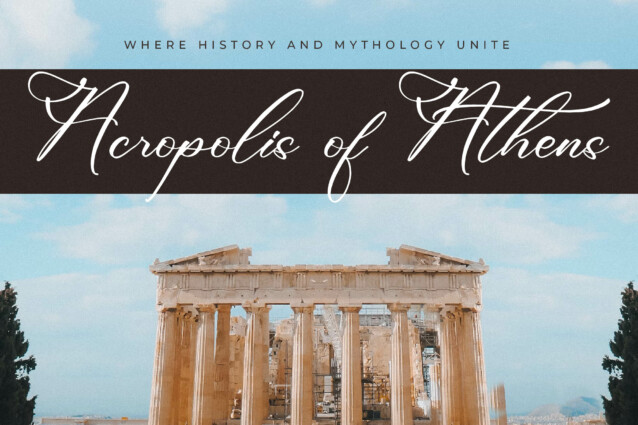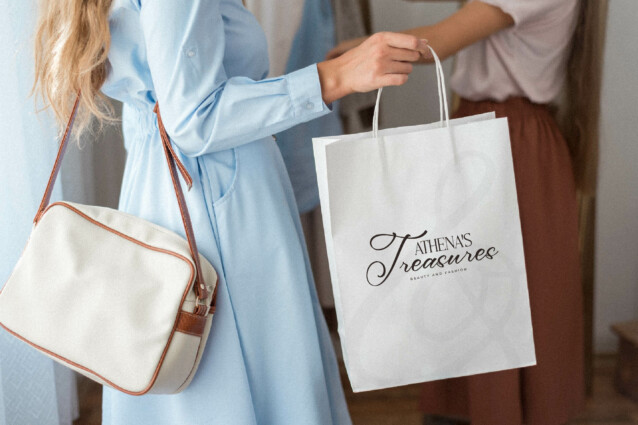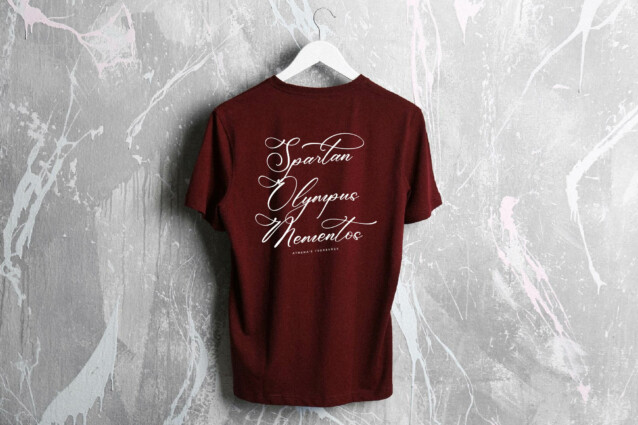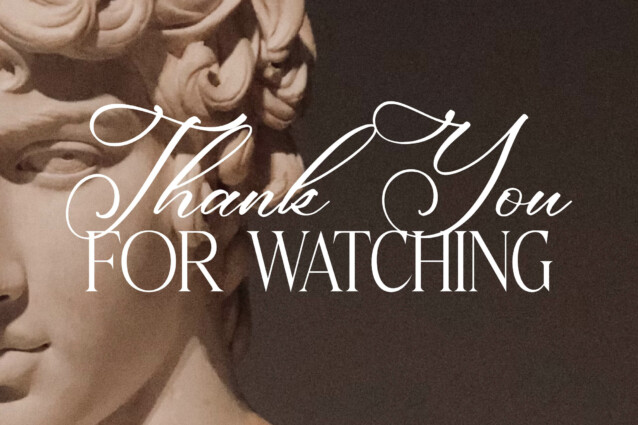
Ethena Emporium Font Duo
Ethena Emporium Font is a serif and script typeface that has own unique style & modern look. This typeface is perfect for an elegant & luxury logo, book or movie title design, fashion brand, magazine, clothes, lettering, quotes, and so much more.